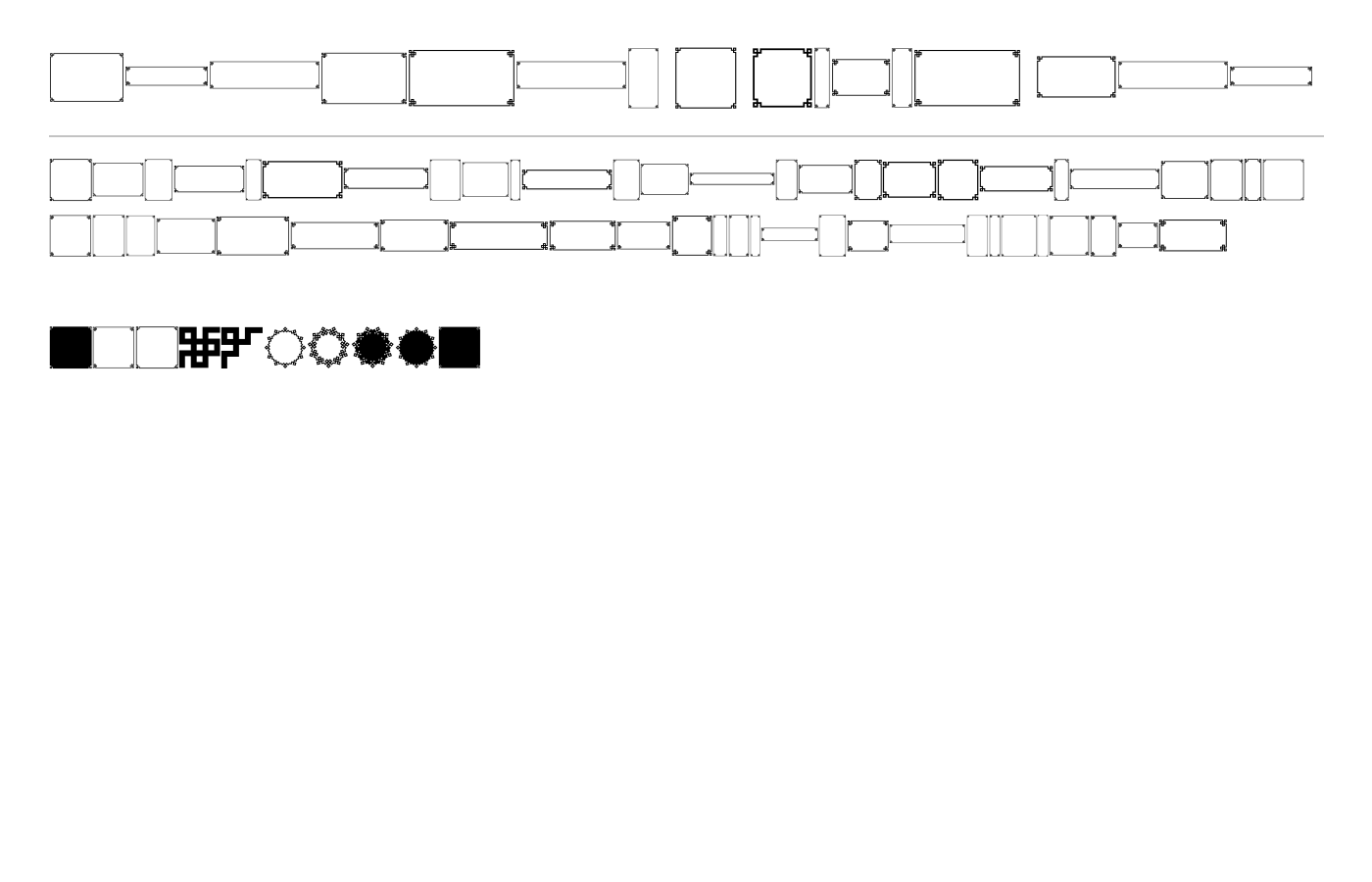
Borders 2 Style Pro is a unique decorative font consisting of various stylized rectangular frames and geometric border designs. It offers a modern, minimalist aesthetic perfect for creating elegant accents in graphic projects, logos, and invitations where a refined ornamental touch is desired. This font works best as a design element rather than for body text, adding visual interest and sophistication to layouts.
Borders 2 Style Pro Font
About Borders 2 Style Pro Font